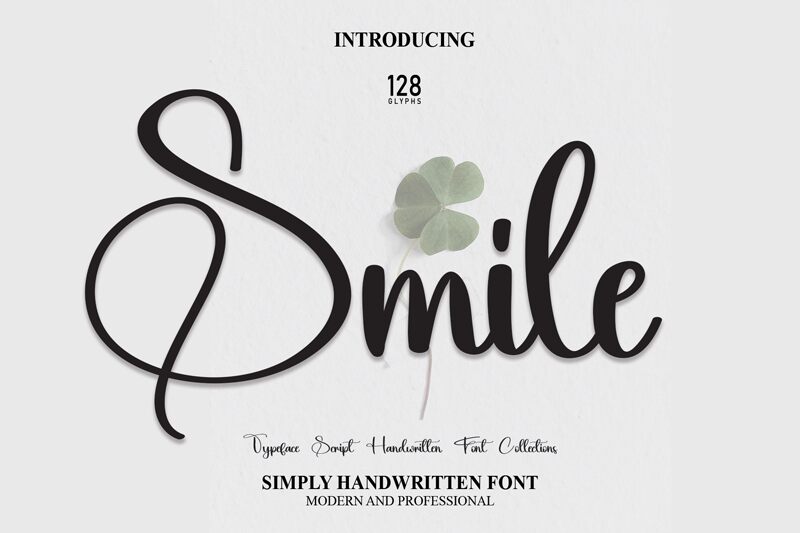
Smile
Smile, a captivating calligraphy font designed by Scratchones, adds an elegant touch to any project. With its semi-light weight, this font exudes grace and sophistication.
Perfect for wedding invitations and romantic greeting cards, Smile brings a sense of romance and whimsy to your designs. Its graceful curves and delicate strokes make it an ideal choice for branding luxury products or creating stunning logos for high-end fashion labels. Whether used in print or digital media, Smile will leave a lasting impression with its timeless beauty and refined aesthetic.
The latest style letters are perfect for wall displays, wedding invitations, social media post logos, advertisements, product packaging, product designs, labels, photography, watermarks, invitations, stationery, and any project that requires taste handwriting.
Perfect for wedding invitations and romantic greeting cards, Smile brings a sense of romance and whimsy to your designs. Its graceful curves and delicate strokes make it an ideal choice for branding luxury products or creating stunning logos for high-end fashion labels. Whether used in print or digital media, Smile will leave a lasting impression with its timeless beauty and refined aesthetic.
The latest style letters are perfect for wall displays, wedding invitations, social media post logos, advertisements, product packaging, product designs, labels, photography, watermarks, invitations, stationery, and any project that requires taste handwriting.